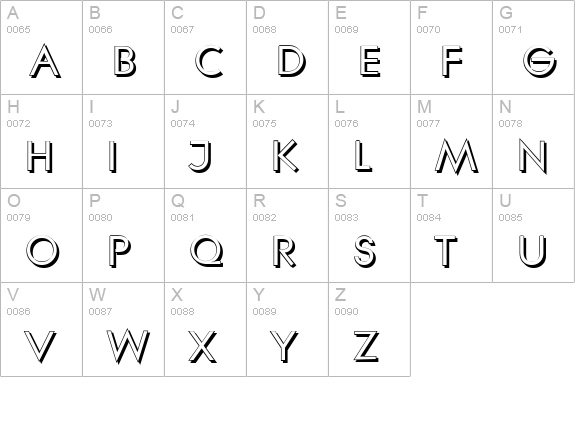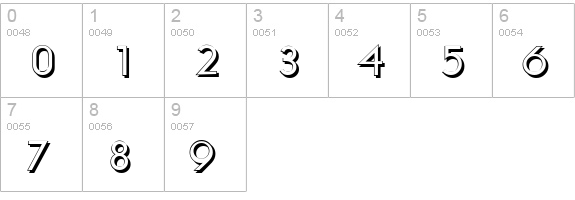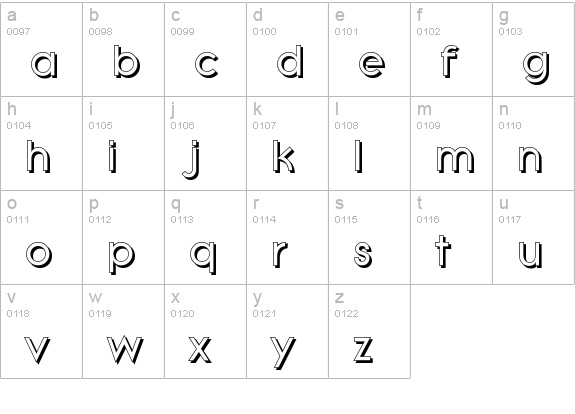
LiteraShadow-Bold Font Details
LiteraShadow-Bold is a strong, high-contrast variant in the LiteraShadow typeface family \xE2\x80\x94 well suited to headlines, attention-grabbing titles, and strong calls-to-action.
LiteraShadow-Bold is a bold and striking font that exudes a sense of strength and confidence. With its thick, shadowed design, this font commands attention and makes a powerful statement in any design project. Whether used for headings, titles, or logos, LiteraShadow-Bold adds a touch of boldness and sophistication. What makes LiteraShadow-Bold even more appealing is that it is available for free download at FontsMarket.com. This means you can easily access and use this impressive font in your projects without any cost. Don't miss out on the opportunity to enhance your designs with the impactful presence of LiteraShadow-Bold. Download it today and elevate your creations to new heights.